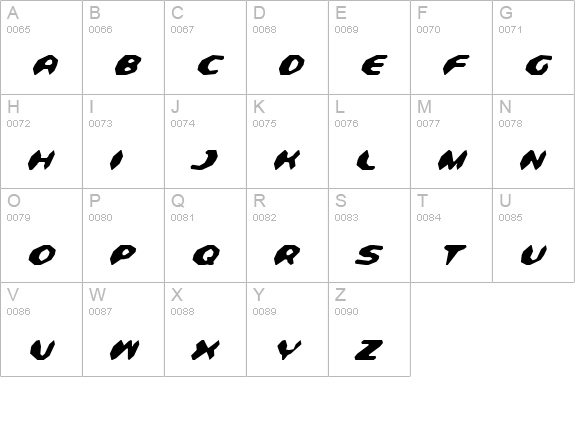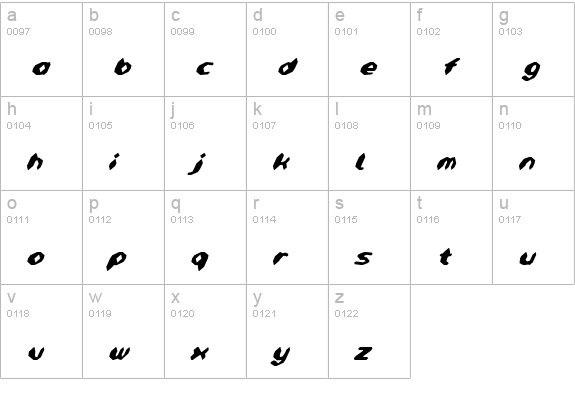
Detonator Condensed Italic Font Details
Detonator Condensed Italic is a distinctive, condensed-width, italic variant in the Detonator typeface family \xE2\x80\x94 well suited to design and typography projects.
Detonator Condensed Italic font is a sleek and modern typeface that exudes energy and dynamism. Its italic design adds a touch of sophistication and flair to any project, making it perfect for headlines, logos, and branding materials. The condensed style of this font allows for maximum impact and readability in a compact space. Best of all, Detonator Condensed Italic font is available for free download at FontsMarket.com. Whether you're a designer looking to add some extra style to your creations or a business owner in need of a fresh look for your marketing materials, this font is sure to make a bold statement. Don't miss out on the opportunity to elevate your designs with this versatile and eye-catching typeface - download Detonator Condensed Italic font today!